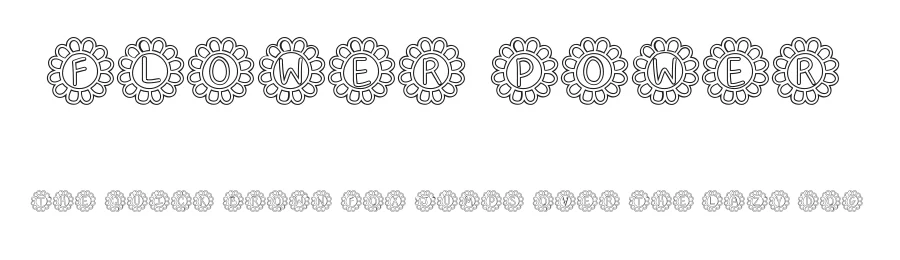
About Summer Child Font
Summer Child is a chill flower font. Use the circumflex ^ (shift + 6) for a blank flower, or the asterisk * for a stemmed flower. Great for summer decor or kidsΒ nameplates. This font contains just the standard alphabet and basic punctuation.